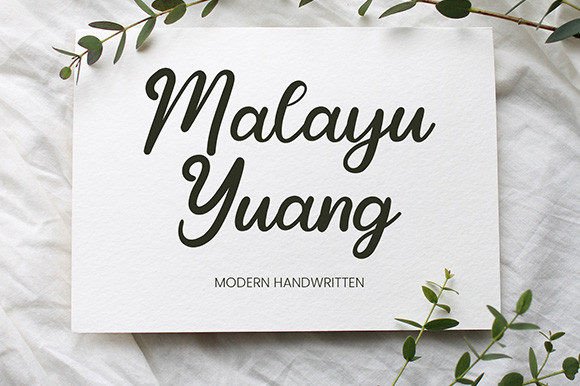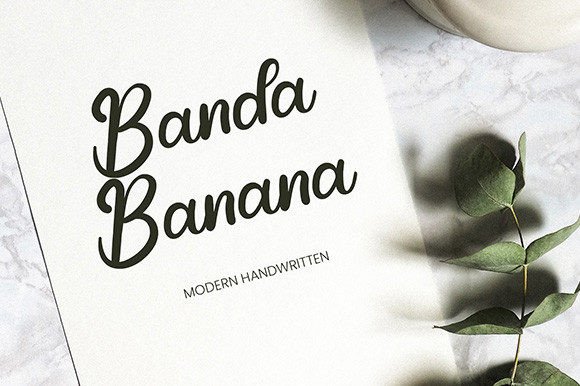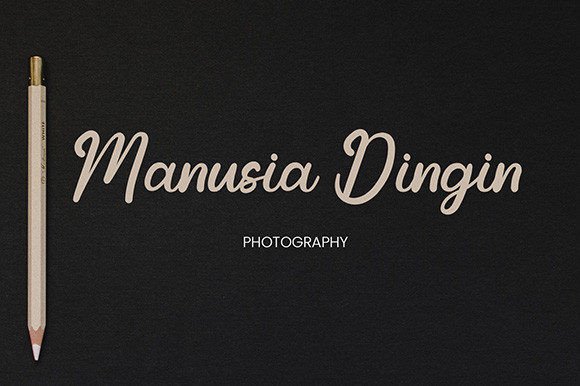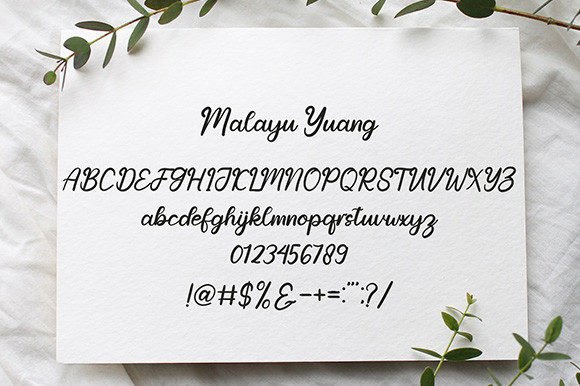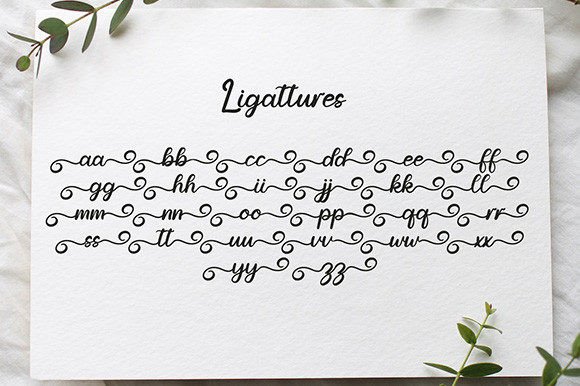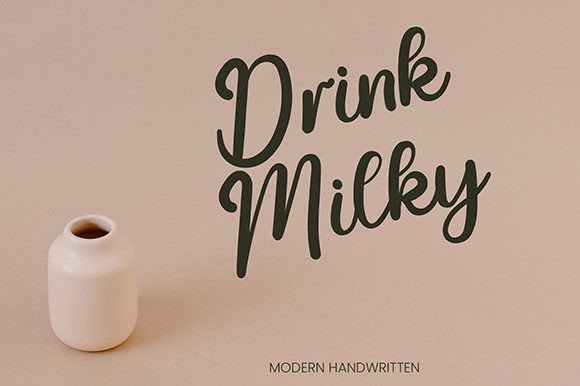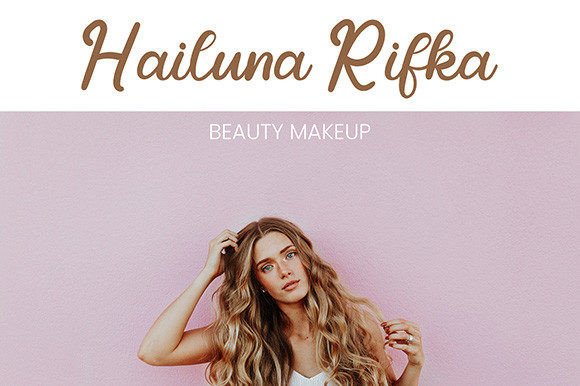
Malayu Yuang Font
A Delicate and Flowing Handwritten Script
Malayu Yuang is a beautifully crafted handwritten font designed to bring elegance and warmth to your creative work. Each letter features smooth curves and perfectly balanced shapes that feel polished and inviting. The delicate flow of the strokes makes this font perfect for projects that need a refined, timeless look.
Whether you’re working on professional branding or personal projects, Malayu Yuang helps your text stand out in a graceful and sophisticated way.
Malayu Yuang is a versatile font that adapts effortlessly to a wide range of uses. It’s ideal for wedding invitations, save-the-date cards, and event signage. The flowing script creates a romantic atmosphere that makes every occasion feel extra special.
Use Malayu Yuang for logos, brand identities, and business cards. The elegant shapes add a unique personality to your brand while keeping it professional and memorable.
This font also works beautifully on product packaging, boutique labels, and handmade goods. The delicate letterforms help your products feel premium and thoughtfully designed.
Malayu Yuang is perfect for social media graphics, blog headers, and Pinterest pins. No matter where you use it, the font adds a classy touch that captures attention.
The font includes uppercase and lowercase letters, numbers, and punctuation marks. Ligatures are included so your text flows naturally and looks cohesive.
Clear, Refined, and Easy to Read
Even with its decorative style, Malayu Yuang remains clear and legible at any size. Balanced spacing ensures your text stays tidy and professional, whether you use it for big headlines or small captions.
Many designers pair Malayu Yuang with a minimalist sans-serif font to create visual contrast. Use Malayu Yuang for titles and the sans-serif for supporting text. This combination guides the reader’s eye and keeps layouts modern and clean.
To highlight Malayu Yuang’s elegant style, use soft backgrounds and neutral color palettes. Shades like ivory, blush, and warm gray let the graceful strokes stand out without distraction.
When designing wedding materials or premium packaging, consider adding subtle illustrations or watercolor textures to complement the romantic look. For social media graphics and marketing materials, keep layouts simple so the script remains the focus.
Think about the mood you want to create. Malayu Yuang is perfect for designs that should feel warm, sophisticated, and timeless.
Malayu Yuang is more than just a handwritten script font. It’s a creative tool that turns ordinary text into something beautiful and memorable. Its smooth lines and balanced shapes bring personality and elegance to any project.
Adding Malayu Yuang to your font collection gives you a reliable option for all kinds of creative work. From weddings and branding to packaging and social media, this font adapts easily to your ideas.